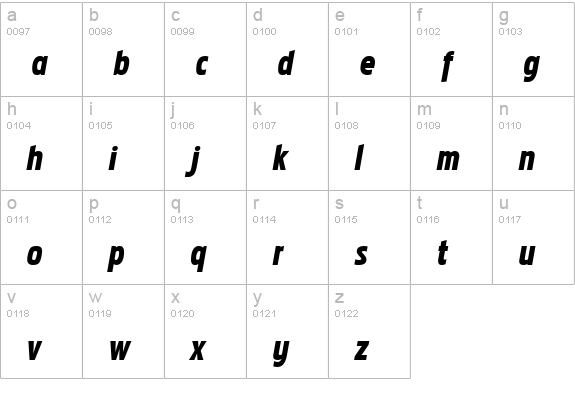
Pakenham Blk Italic is a distinctive, italic variant in the Pakenham typeface family \xE2\x80\x94 well suited to design and typography projects.
Pakenham Blk Italic font is a stunning display typeface that exudes elegance and sophistication. Its bold and italic design adds a touch of drama and flair to any project, making it perfect for headings, titles, and branding materials. The sleek lines and unique curves of this font give it a modern and stylish look that is sure to captivate attention. What's even better is that Pakenham Blk Italic font is available for free download at FontsMarket.com. You can easily access this versatile font and enhance your designs without any cost. Don't miss out on the opportunity to elevate your projects with this striking typeface that combines boldness with sophistication. Download Pakenham Blk Italic font today and bring a touch of elegance to your designs.